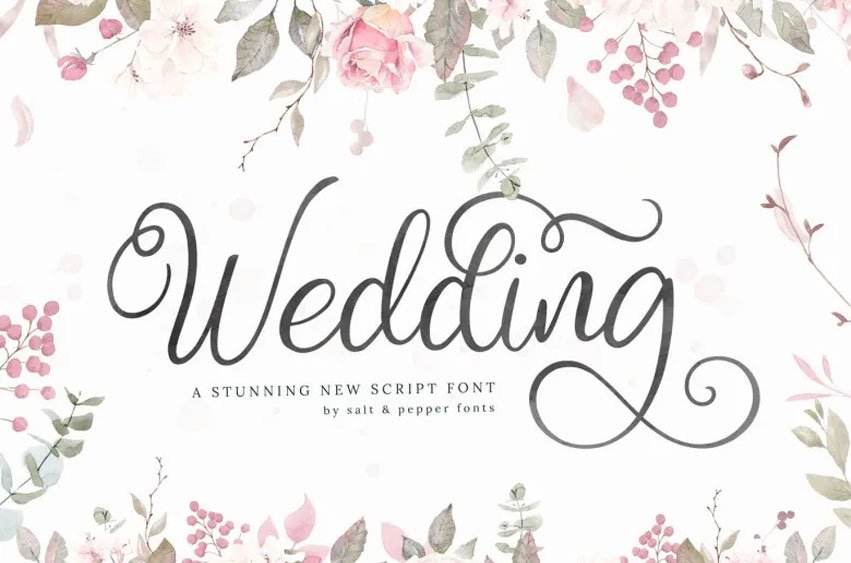
Wedding Font is an elegant and romantic calligraphy typeface with characters that move along its base, perfect for adding some luxury energy to any design project.